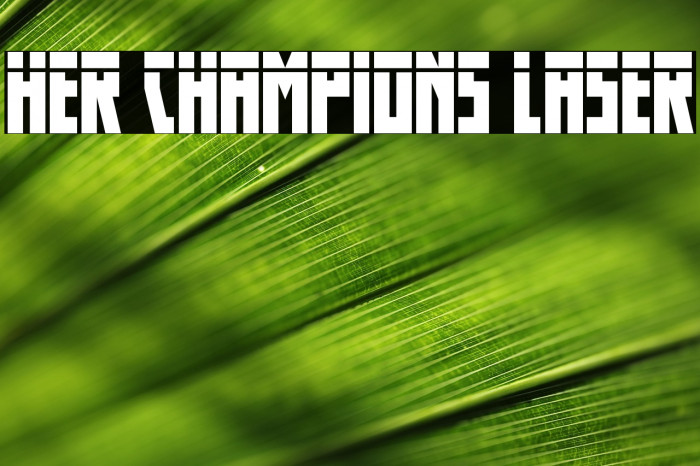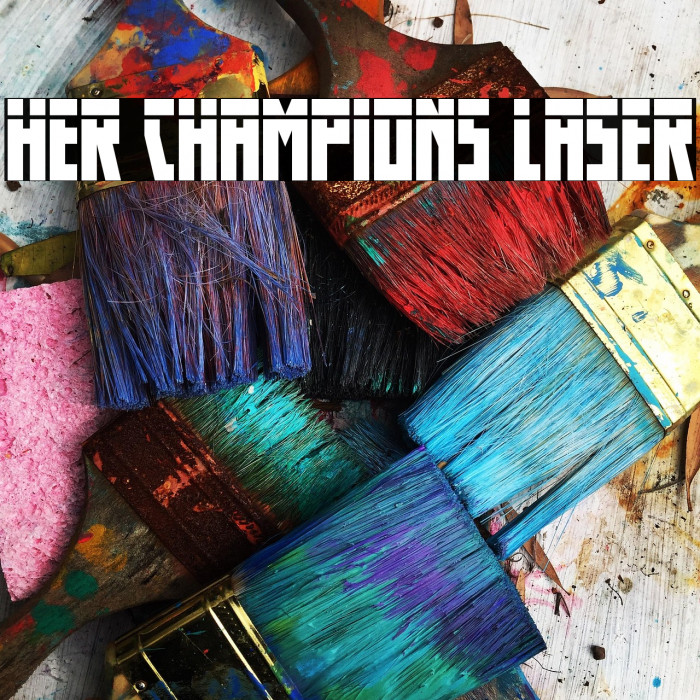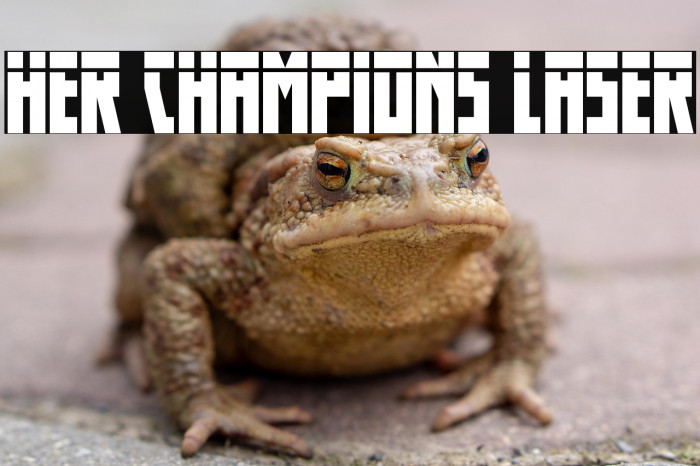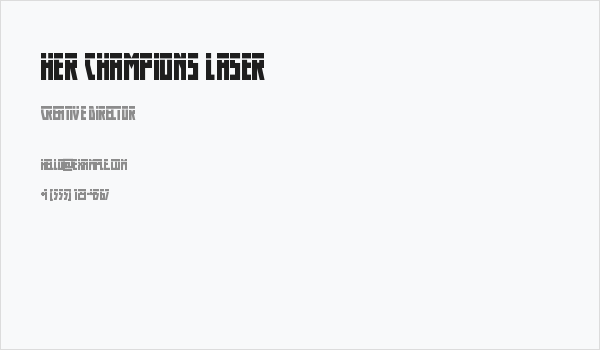
Her Champions Laser Font
Her Champions Laser Description
This font features a bold, geometric design with a strong emphasis on angular shapes and sharp edges. The characters are constructed with a blocky, stencil-like appearance, giving it a futuristic and industrial feel. The uppercase and lowercase letters maintain a consistent height, contributing to a uniform look across the typeface. The numbers and special characters follow the same stylistic approach, ensuring cohesion throughout. The font's design is highly distinctive, making it suitable for attention-grabbing headlines and logos. Its boldness and unique style make it less ideal for body text but perfect for projects requiring a modern, edgy aesthetic.
Proposed ProjectsIdeal for branding, posters, video game graphics, and sci-fi themed projects.